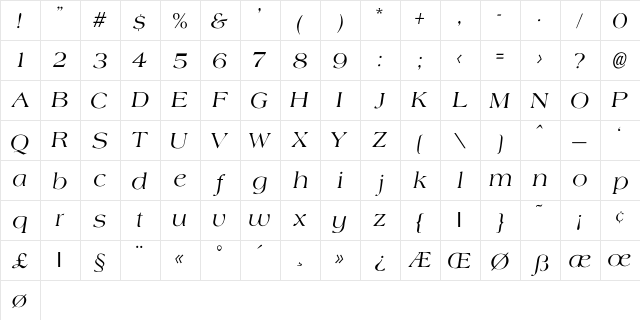
Harding-Normal-Italic Regular
Harding-Normal-Italic is a composed and adaptable typeface that performs quietly and consistently across a wide range of design contexts. Its italic angle brings a sense of urgency and motion to the letterforms.